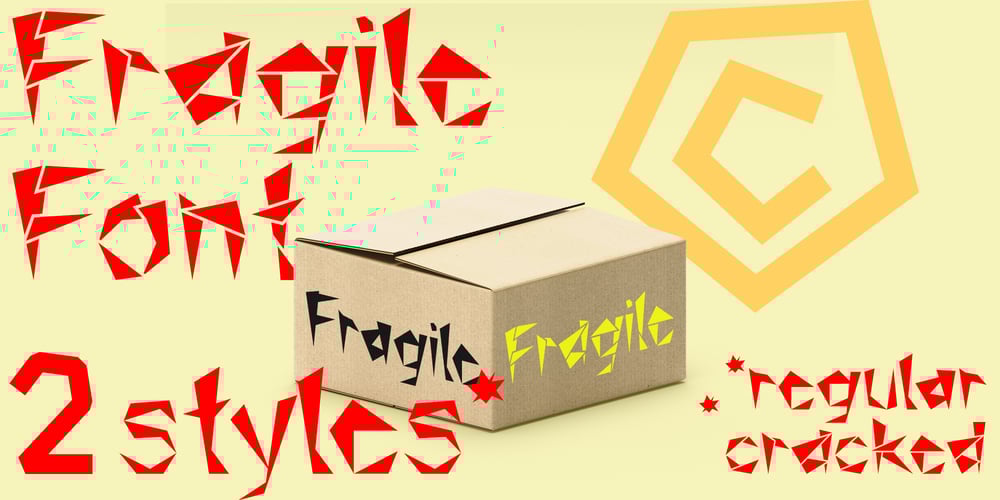
Fragment
Fragment font
Fragment Font Family was designed by Ali Güzel and published by Ali Güzel. Fragment contains 2 styles and family package options. The font is designed inspired by the pieces. While it is being designed, it is aimed to give a sharp feeling and look balanced rather than being legible. So on logos, T-shirts, and all things printed, this font can be used if the content is appropriate.